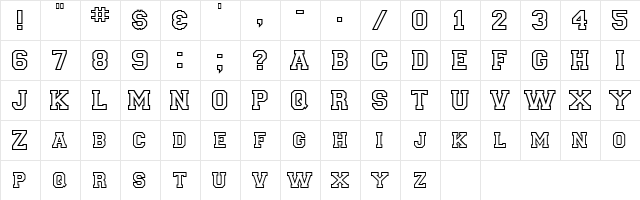
Letter Sweater Open Display SSi Bold
Design Context for Letter Sweater Open Display SSi Typeface
Letter Sweater Open Display SSi is built around its visual character rather than neutral utility — its distinctive forms are designed to make an impression at display sizes. Its bold stroke weight gives it real presence on the page.
Font Pairing: Pair with a clean neutral sans-serif for body copy to let Letter Sweater Open Display SSi's character lead without overwhelming the composition.
Pro Tip: Use Letter Sweater Open Display SSi exclusively at display sizes — it was designed to be seen, not read at length. Let a neutral companion handle body copy.